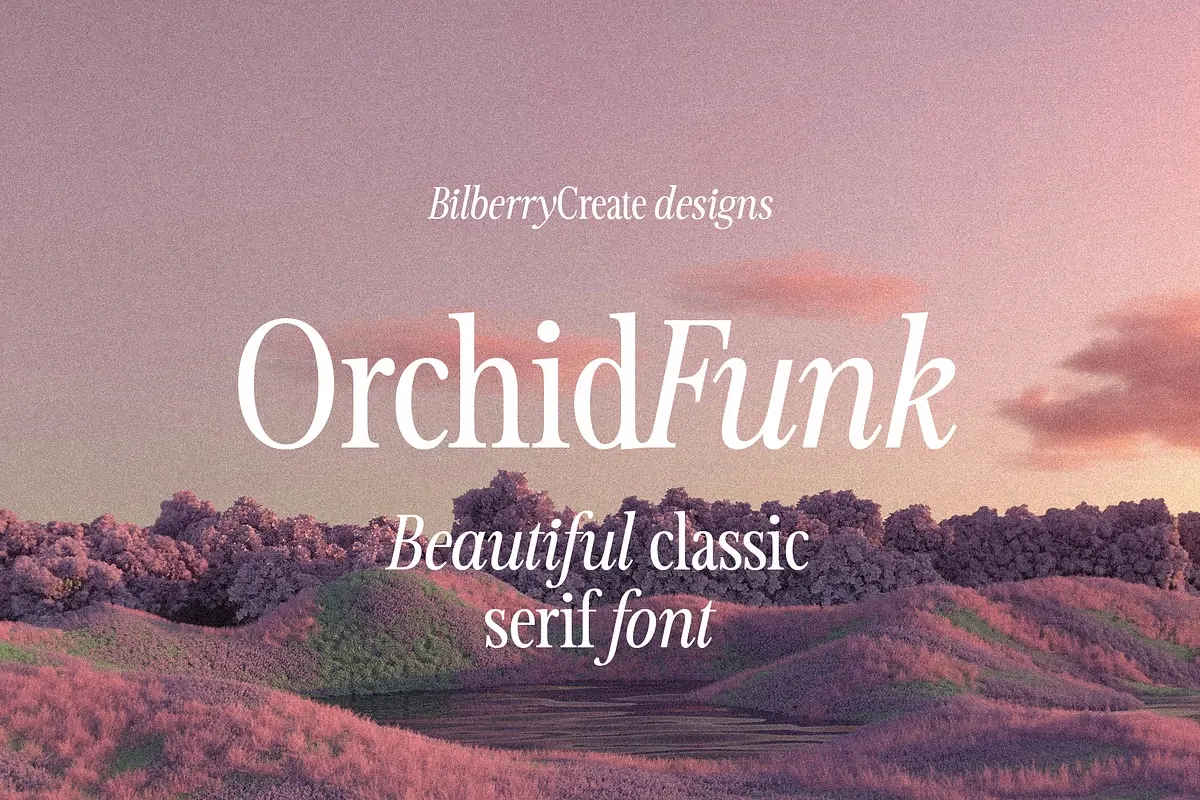
OrchidFunk - Classic Serif Font Free Download
OrchidFunk – Classic Serif Font Free Download
Stylish, timeless, and full of flair, OrchidFunk – Classic Serif Font Free Download blends traditional serif elegance with a funky, modern twist. Perfect for branding, editorial layouts, headlines, fashion design, and creative packaging, this typeface stands out with bold letterforms, high contrast strokes, and just the right touch of vintage attitude.
OrchidFunk is ideal for designers who want to bring both sophistication and personality into their work. Its refined serifs and unique rhythm give your typography a distinctive look that feels equally at home in retro themes and upscale, contemporary designs.